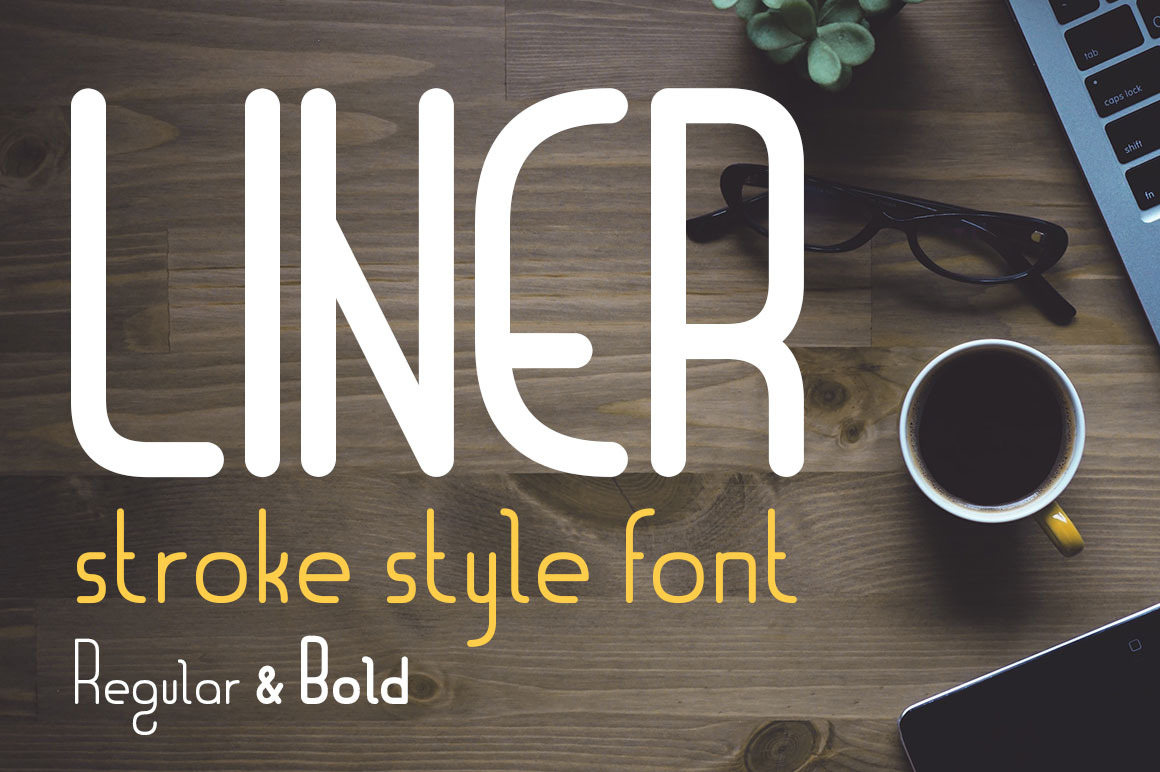
Liner| font for logos with frames
Liner is a beautiful sans serif font designed with rounded edges. Simple and stylish, it has two inscriptions for that can be used together. The font works great to make logos and short titles. Font is supplemented with line art elements and frameworks for more simple design creation.
- two weights (regular&bold)
- uppercase letters
- lowercase letters
- numbers & punctuation
- line art elements and frames